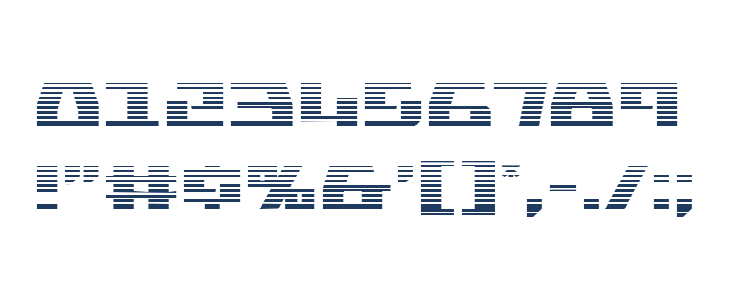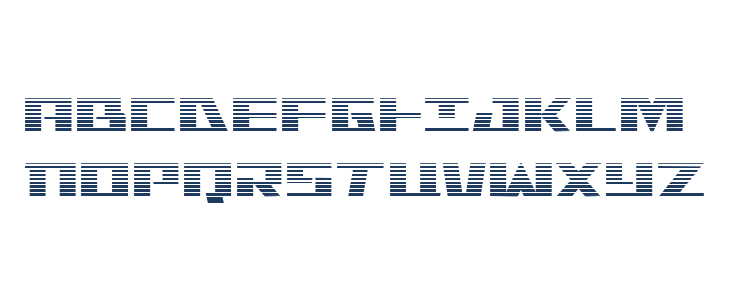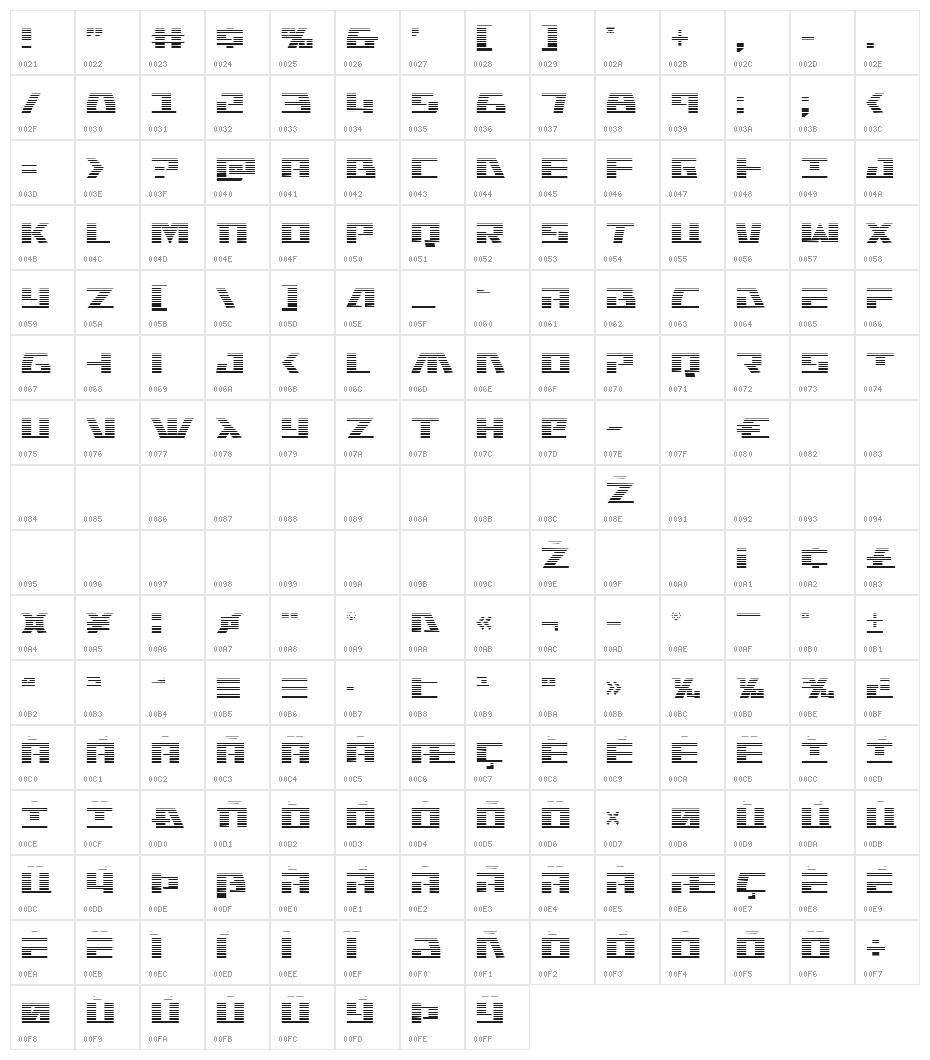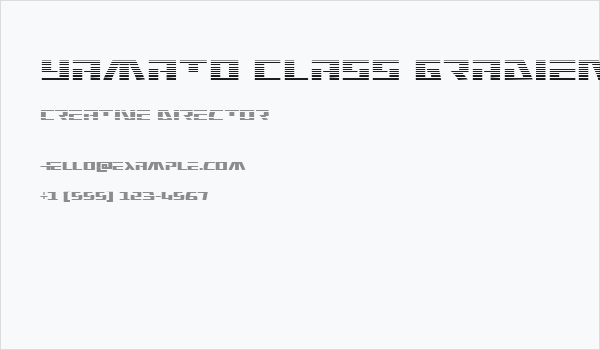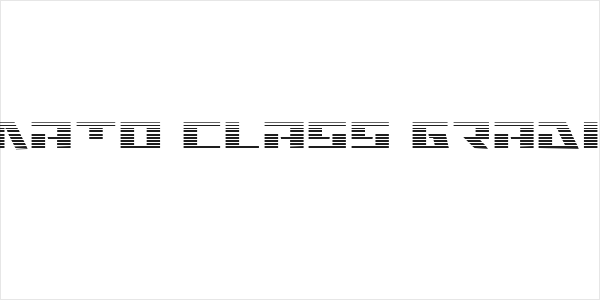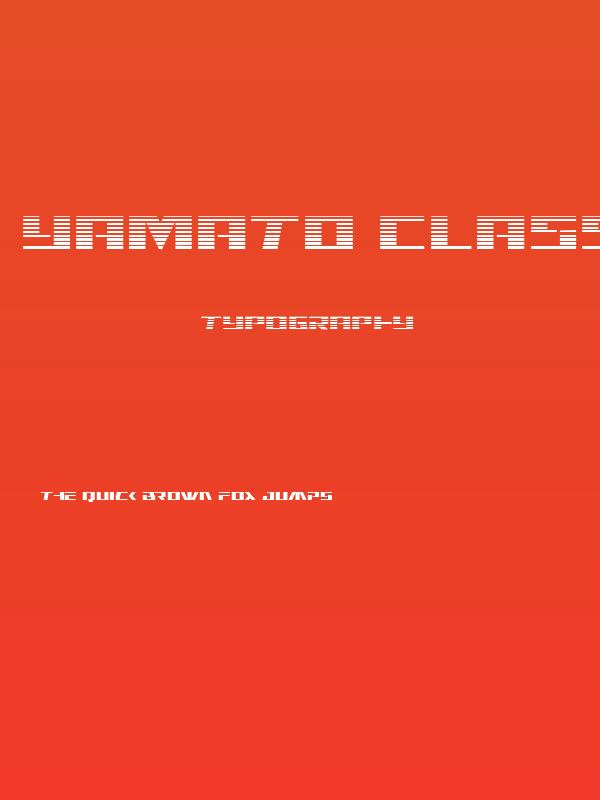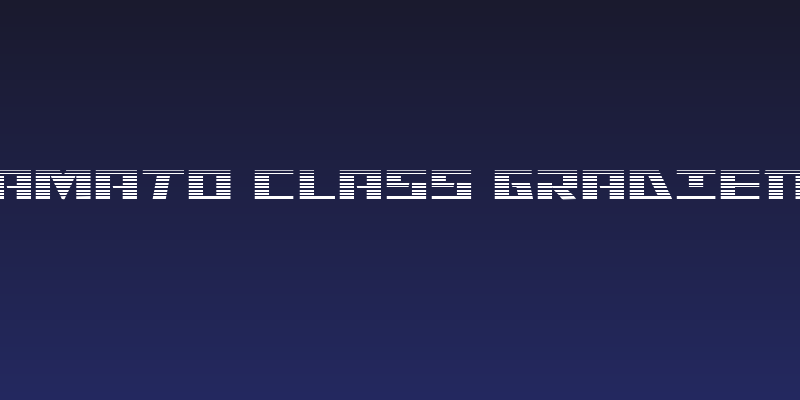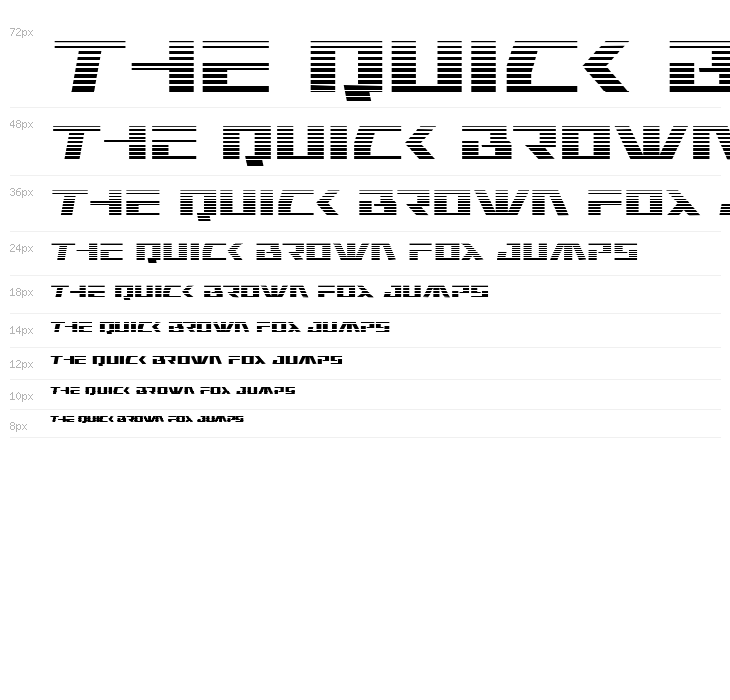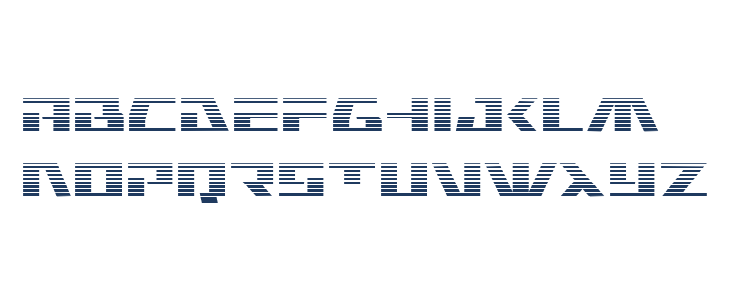
Yamato Class Gradient Font
Yamato Class Gradient Description
A geometric, decorative display font constructed from bold horizontal stripes, creating a futuristic and mechanical appearance with sharp angles and segmented letterforms. The font maintains consistent spacing and a uniform stripe pattern throughout all characters.
| Overall Style | Futuristic, Decorative, Mechanical |
| Use Case | Headlines, Logos, Posters, Display text |
| Proposed Projects | Posters, sci-fi branding, video game titles, event graphics, technology-themed logos. |